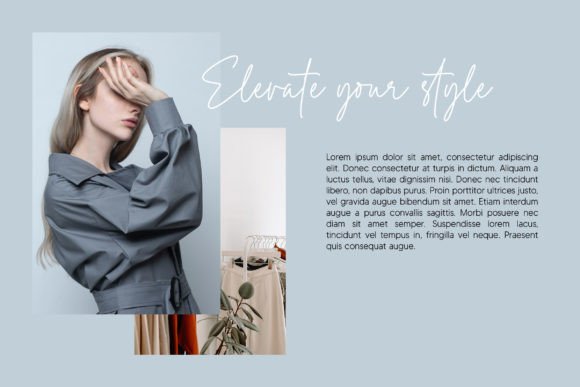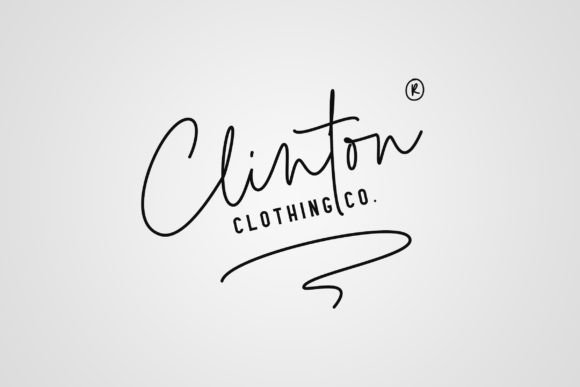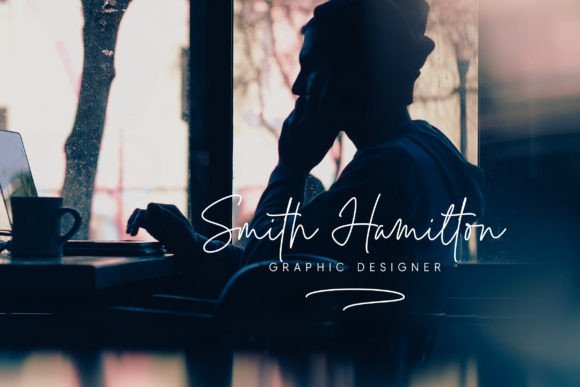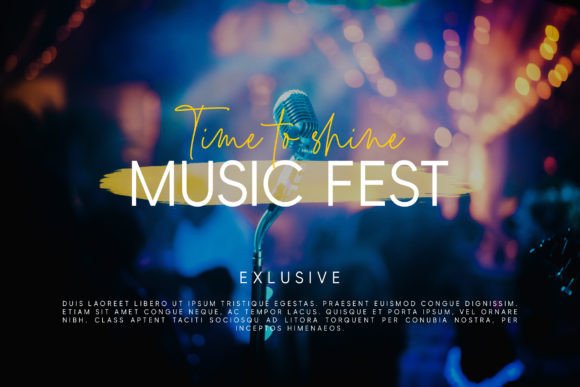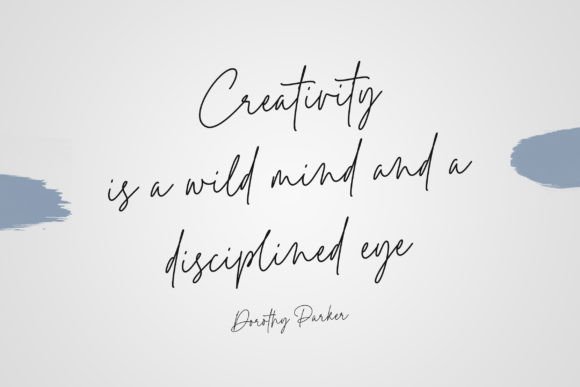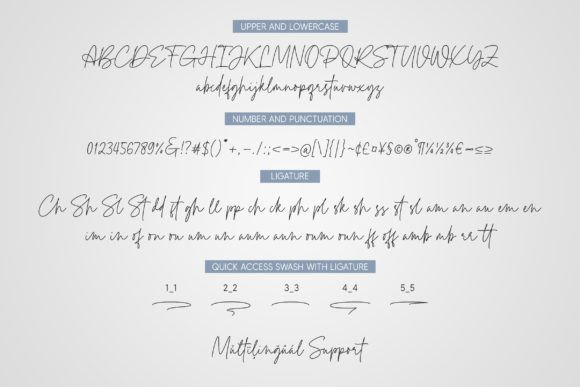
Pointone Font
About Pointone Font
“Pointone” is a stylish, clean, and well-balanced monoline handwritten font that serves as an excellent choice for a wide range of design applications. Whether you’re working on logos, branding, invitations, stationery, wedding designs, social media posts, product designs, labels, photography, or any other creative project, this font is crafted to elevate and bring your ideas to life.
The font’s clean and stylish design adds a touch of modernity and sophistication to your text. Its well-balanced characters make it versatile, allowing it to seamlessly adapt to different design contexts. Whether used for formal invitations or social media posts, “Pointone” adds a polished and contemporary aesthetic.
The inclusion of PUA encoding is a valuable feature, offering easy access to a variety of glyphs and swashes. This encoding allows for convenient customization, giving designers the freedom to personalize their projects and add unique flourishes to their designs.
In summary, “Pointone” is more than just a font; it’s a design asset that brings style, cleanliness, and balance to your creative projects. With its versatility and PUA encoding, “Pointone” stands as a powerful tool for designers seeking a monoline handwritten font that can breathe life into a variety of design ideas.